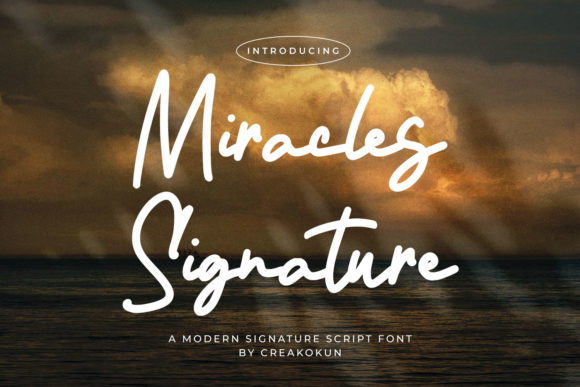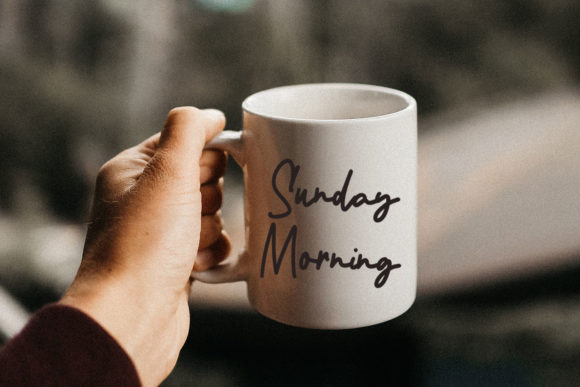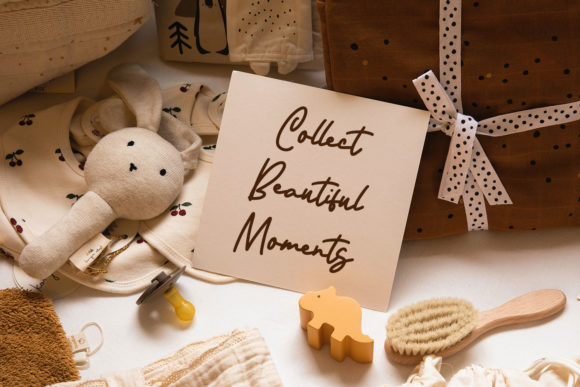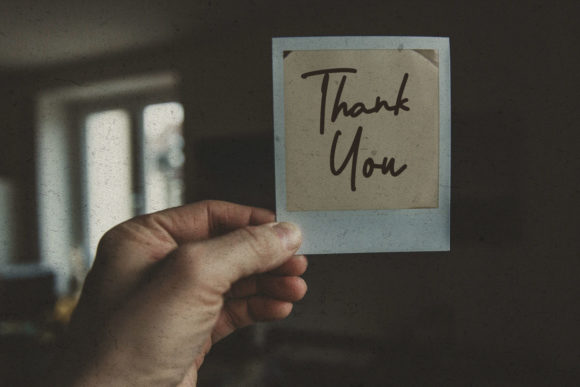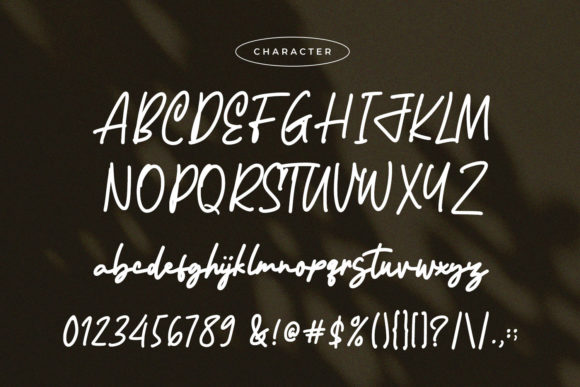
Miracles Signature Font
About Miracles Signature Font
Miracles Signature is a modern monoline signature handwriting script font designed to captivate with its relaxed and stylish appearance. Whether you’re creating cards, stationary art, social media posts, or various other design projects, this font offers a contemporary and versatile option for expressing your creativity.
The modern monoline style of Miracles Signature provides a sleek and consistent look, making it suitable for a wide range of applications. Its signature handwriting script adds a personal touch, creating designs that feel authentic and engaging.
In cards and stationary art, Miracles Signature can bring a sophisticated and contemporary flair. The font’s stylish script enhances the overall aesthetics, making it ideal for crafting personalized messages and artistic designs that leave a lasting impression.
For social media posts, Miracles Signature adds a touch of elegance to your content. Its relaxed style contributes to a visually appealing and approachable presence, making it suitable for various platforms where a modern and stylish script is desired.
Miracles Signature’s PUA encoding allows easy access to a variety of glyphs and ligatures. This feature enhances your creative freedom, enabling you to customize and personalize your typographic compositions effortlessly.
Whether you’re working on digital or print projects, Miracles Signature’s modern monoline signature handwriting script font brings a contemporary and relaxed vibe to your designs. Its versatility makes it a valuable addition to your font collection, suitable for expressing a range of moods and styles.
In summary, Miracles Signature is more than just a font; it’s a modern monoline signature handwriting script font that adds a relaxed and stylish touch to your creative projects. Whether used in cards, stationary art, social media posts, or other design contexts, Miracles Signature provides a contemporary and personalized aesthetic, making your typographic compositions stand out with sophistication and charm.